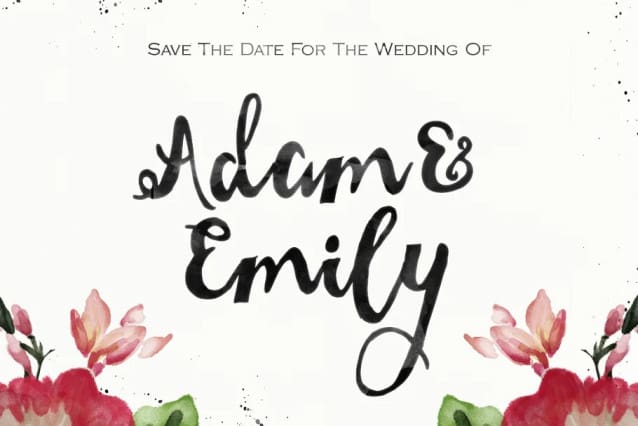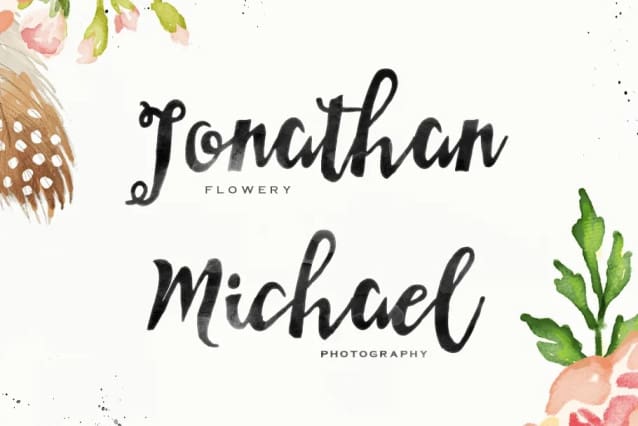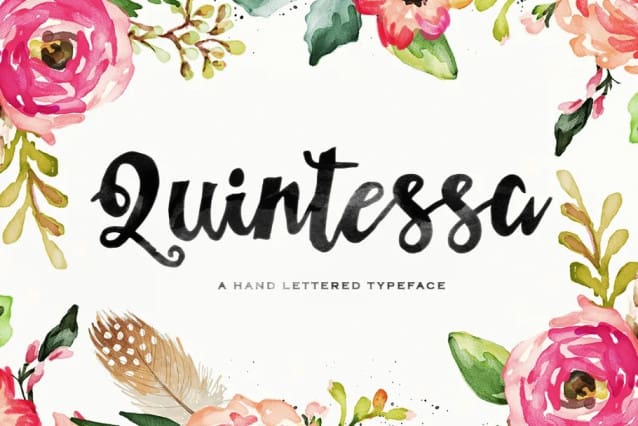
Quintessa Script Font
Quintessa Script Font is a hand lettered and modern calligraphic font perfect for wedding design projects, invitations, greeting cards, signatures, watermarks, logos, and more.